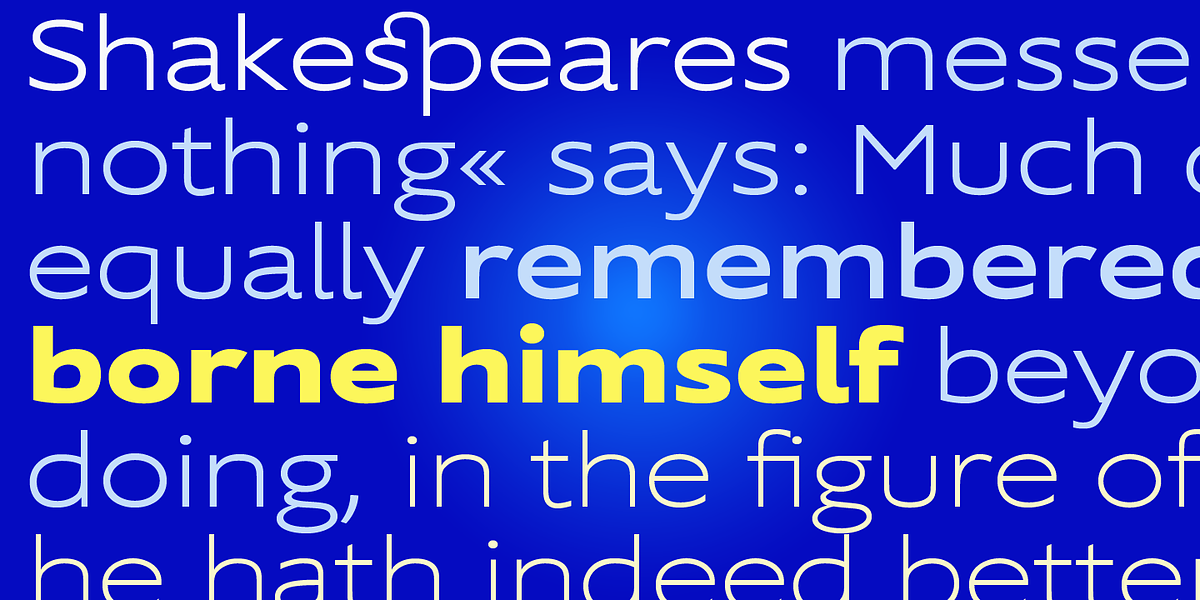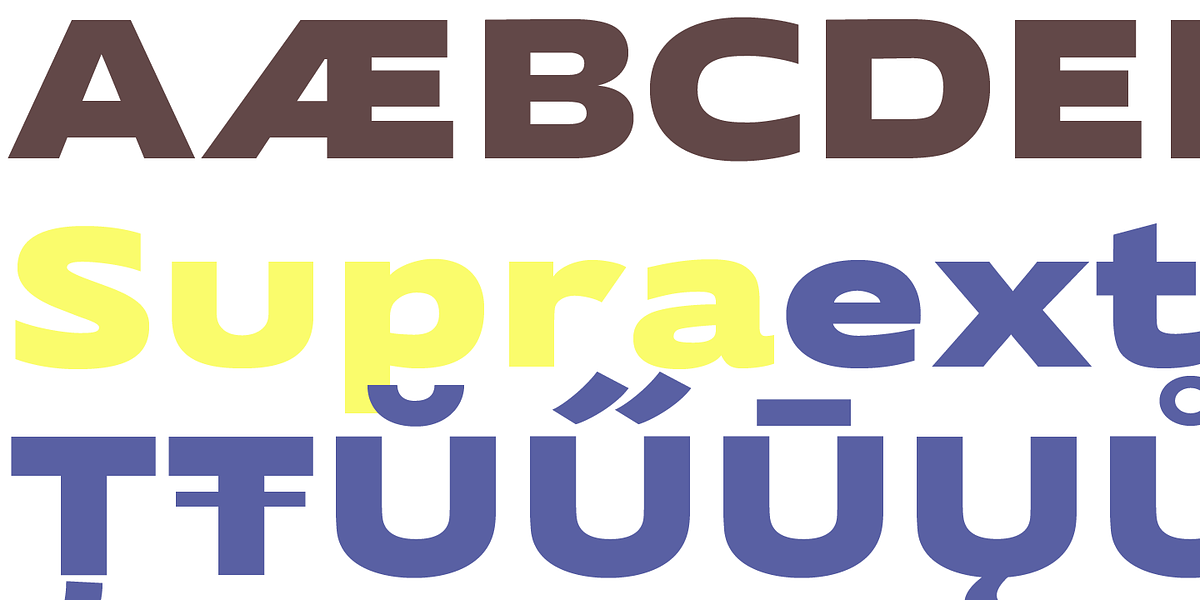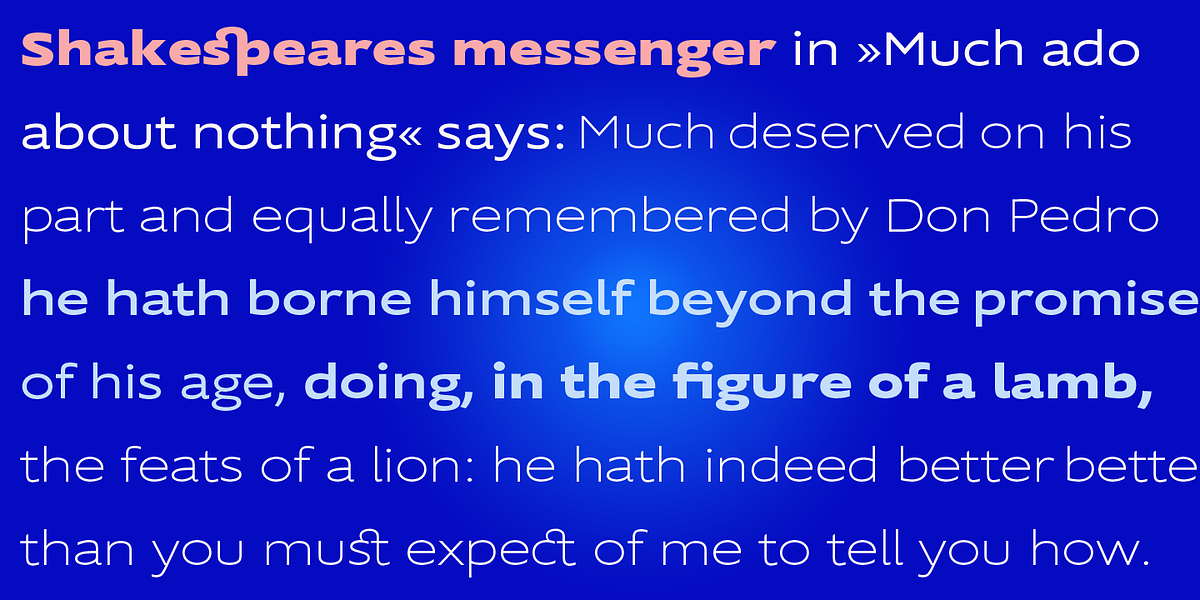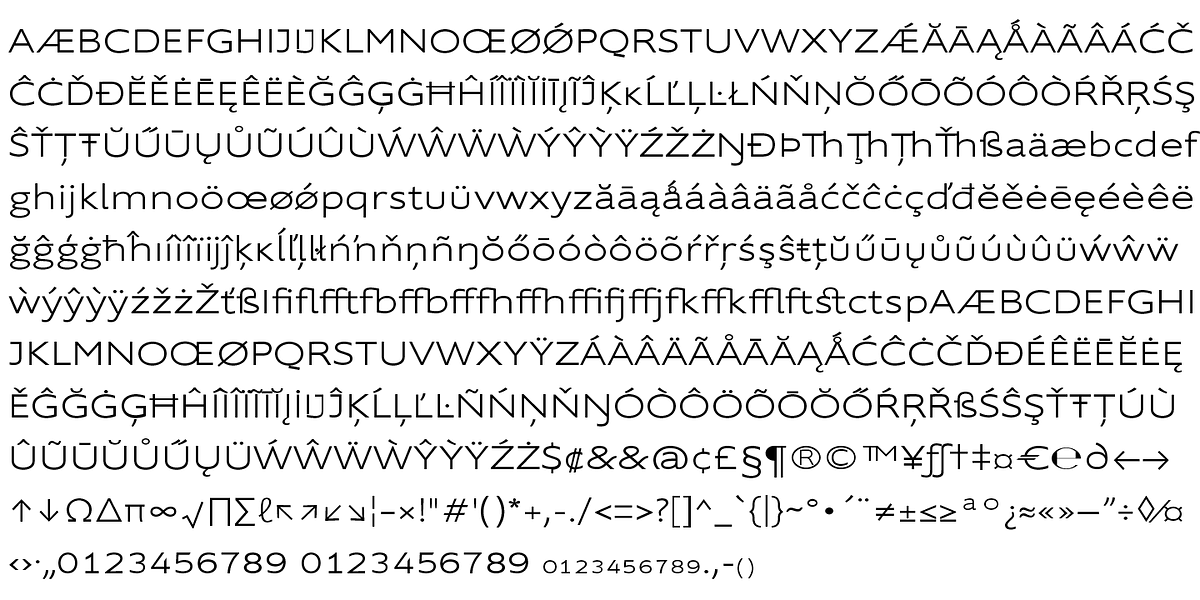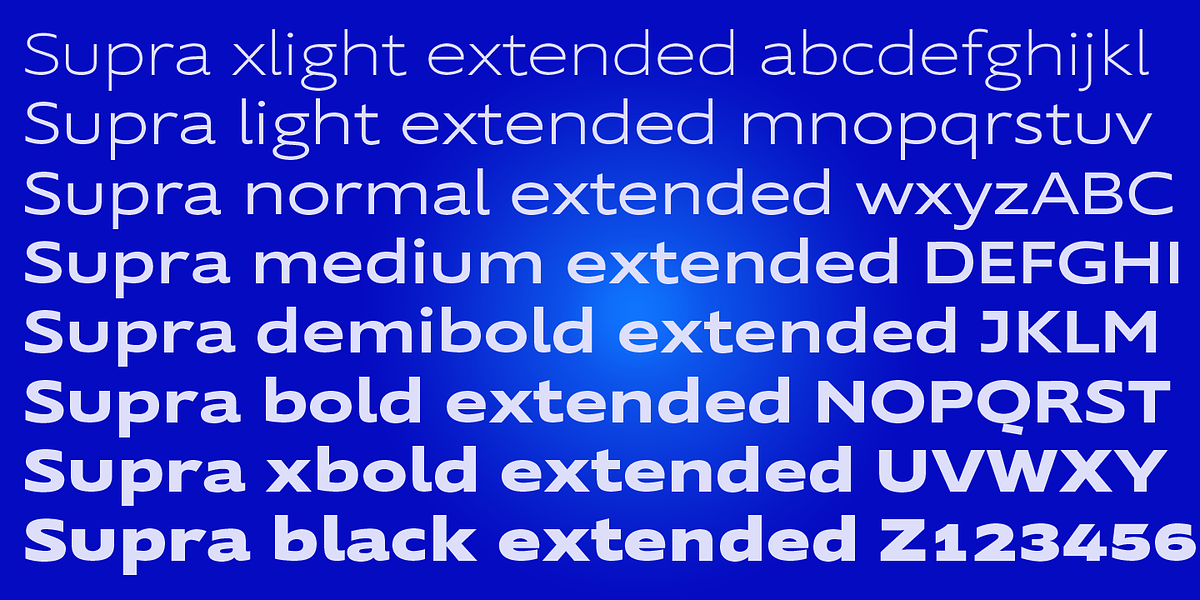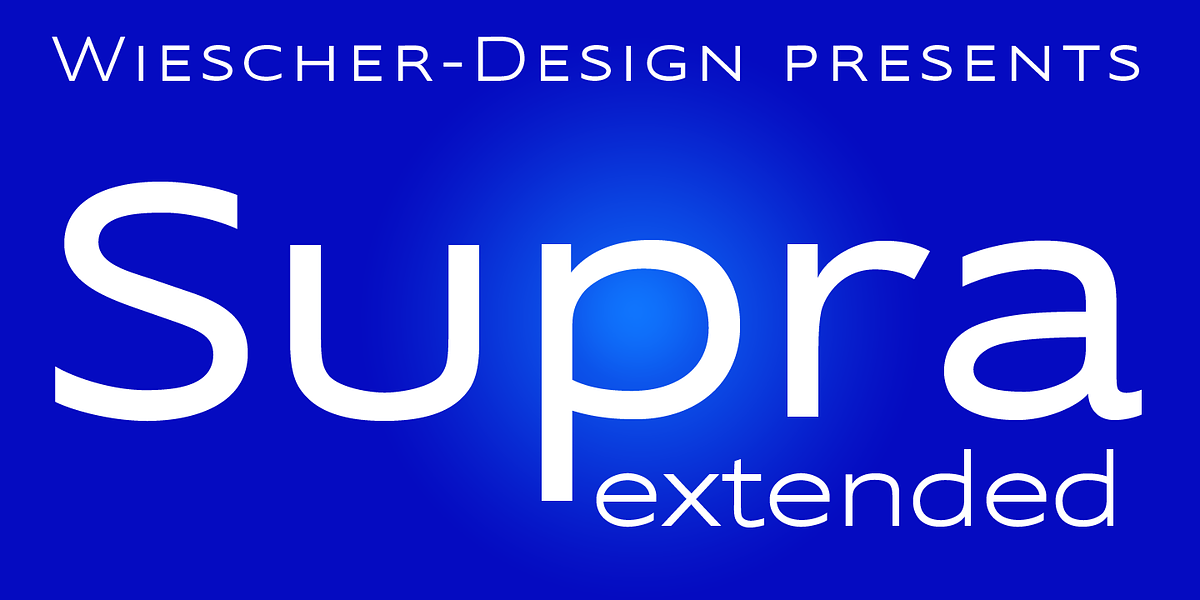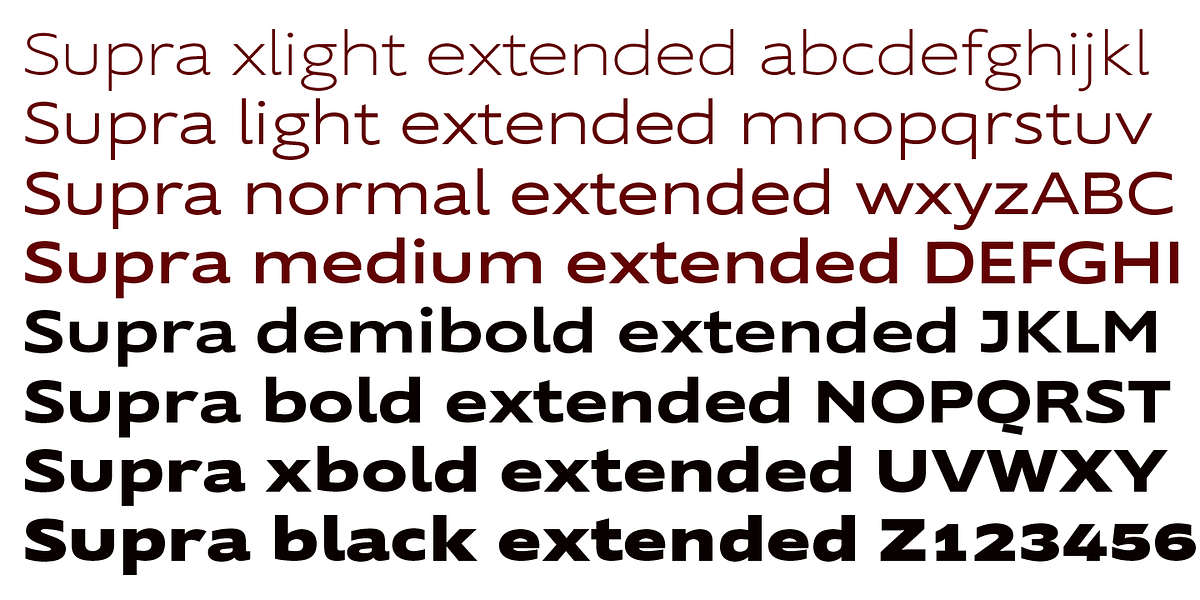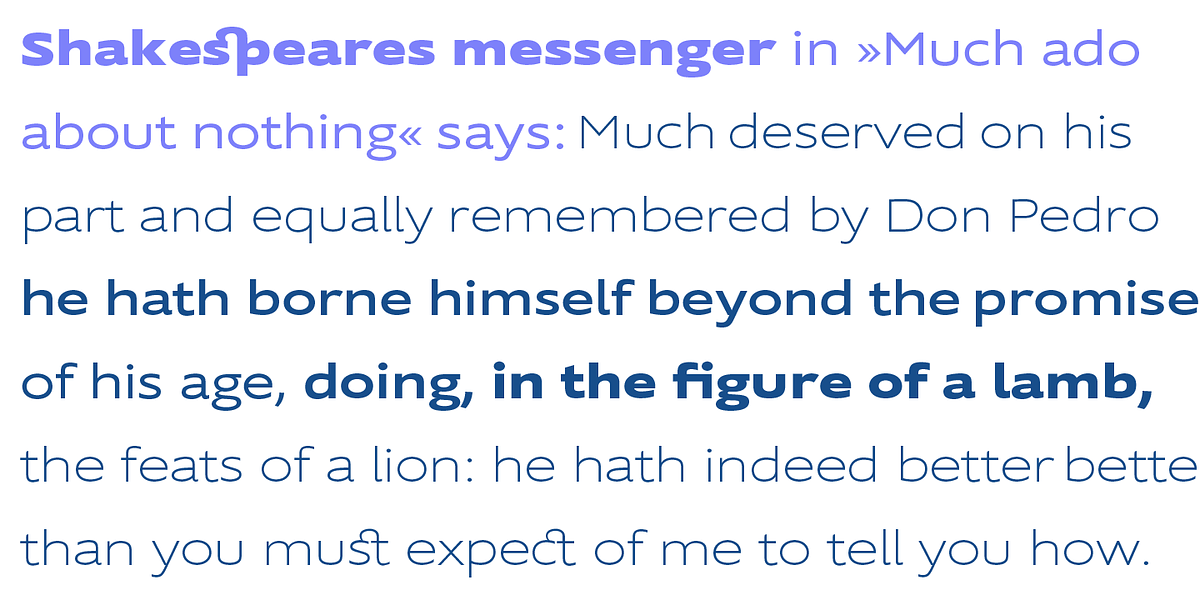
Supra Extended
Supra is a grotesque sans-serif typeface designed by Gert Wiescher in 2013. It is characterized by its high x-height and elegant proportions, making it suitable for both body text and headlines. The font family includes eight weights and supports over 40 Central and Eastern European languages. Supra also features a range of OpenType features, including ligatures, different figures, fractions, currency symbols, and small caps.